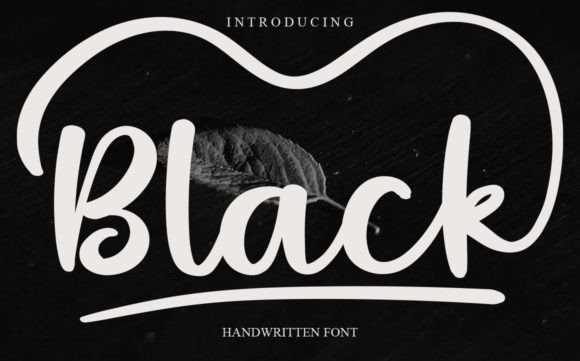
The Sweet Charm of Black Font: A Designer’s Delight
I’ll never forget the time I was working on a wedding invitation project, and my client asked for a font that was “sweet, romantic, and elegant.” I scoured the internet, tried out countless fonts, but nothing seemed to fit the bill. That was until I stumbled upon Black Font, a beautiful handwritten font that stole my heart. In this article, I’ll share my experience with Black Font, its features, and how to make the most of it in your designs.
A Personal Review of Black Font
Black Font is a delicate, handwritten font that exudes romance and sophistication. Here are some things I love about it:
- ✨ Sweet and romantic feel: Black Font has a whimsical, cursive style that’s perfect for wedding invitations, wall displays, and social media posts.
- ✅ Elegant flow: The font features a smooth, flowing script that’s easy on the eyes.
- ✨ Versatile: Black Font can be used for a variety of projects, from formal events to casual social media posts.
While Black Font is a beautiful font, it’s not without its quirks. Here are a few things to keep in mind:
- ⚠️ Limited use in body text: Due to its elegant, cursive nature, Black Font may not be the best choice for lengthy body text.
- 🤔 Glyph limitations: Black Font may not have an extensive range of glyphs, which could limit its use in certain projects.
The Story Behind Black Font
Black Font was designed with love and care by a talented typographer who’s passionate about creating beautiful, elegant fonts. The font’s delicate flow and sweet, romantic feel make it perfect for a variety of design projects.
| Font Name | Black Font |
| Author | Garcio |
| What is Black Font best used for? | Black Font is perfect for wedding invitations, wall displays, social media posts, and any project that requires elegant, cursive typography. |